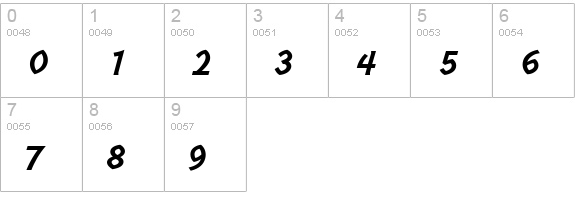
TriplexItalicBoldLining Bold Italic is a strong, high-contrast, italic variant in the TriplexItalicBoldLining typeface family \xE2\x80\x94 well suited to headlines, attention-grabbing titles, and strong calls-to-action.
TriplexItalicBoldLining Bold Italic font is the epitome of elegance and sophistication. With its sleek and stylish design, this font effortlessly captures attention and adds a touch of class to any project. The bold and italicized letterforms of TriplexItalicBoldLining Bold Italic exude confidence and strength, making it perfect for headlines, titles, and branding materials. Its unique combination of curves and sharp edges creates a visual harmony that is both captivating and refined. Whether you're designing a logo, poster, or website, TriplexItalicBoldLining Bold Italic font will make your text stand out with its bold presence and distinctive style. It effortlessly blends modernity with a timeless appeal, making it suitable for a wide range of applications. And the best part? TriplexItalicBoldLining Bold Italic font is available for free download at FontsMarket.com. This means that you can easily access this stunning font without breaking the bank. Its freely available nature ensures that you can bring your creative visions to life without any limitations. So why wait? Elevate your designs to new heights with TriplexItalicBoldLining Bold Italic font. Download it for free at FontsMarket.com and unlock a world of endless possibilities.